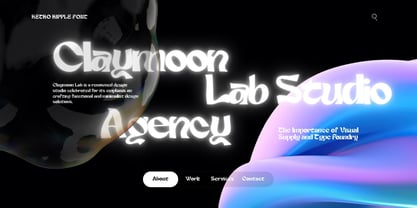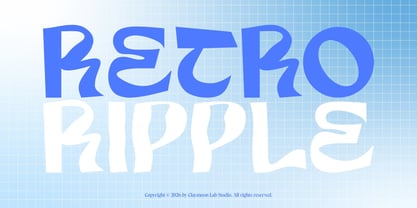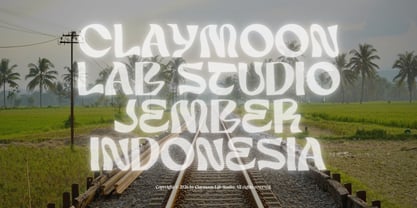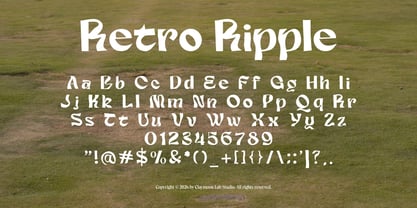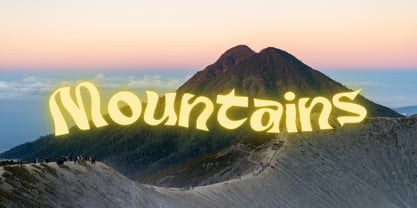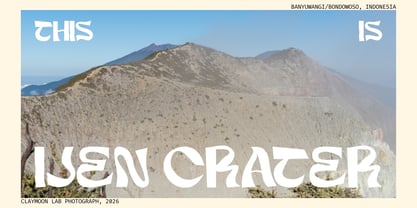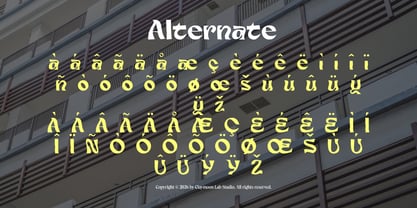
Retro Ripple — Wavy Display Font
Dive into the fluid and dynamic aesthetic of Retro Ripple, a unique wavy display font that brings a distorted, liquid effect to your digital typography. Inspired by the groovy psychedelic art of the 70s and the bold, experimental vibes of Y2K design, this typeface features melting letterforms and a continuous, flowing rhythm. It is the perfect typographic choice when your project needs to break out of the grid and stand out with an edgy, creative personality.
Whether you are designing striking music festival posters, trendy streetwear branding, experimental web interfaces, or eye-catching travel graphics, Retro Ripple delivers a captivating and trippy visual experience that demands attention.
* Full Character Set: Uppercase, lowercase, numerals, and standard punctuation.
* Standard Latin Support: Broad language coverage for international creative projects.
Perfect For These Projects:
* Music & Event Posters: Designing dynamic gig posters, music festival announcements, and creative event flyers.
* Streetwear & Apparel Branding: Crafting edgy logotypes, trendy t-shirt graphics, and urban fashion brand identities.
* Digital & Web Design: Creating experimental website headers, creative agency portfolios, and modern UI typography.
* Travel & Lifestyle Graphics: Composing unique location posters, aesthetic postcards, and engaging digital travel journals.
* Creative Social Media Content: Developing eye-catching Instagram posts, YouTube thumbnails, and vibrant digital campaigns.